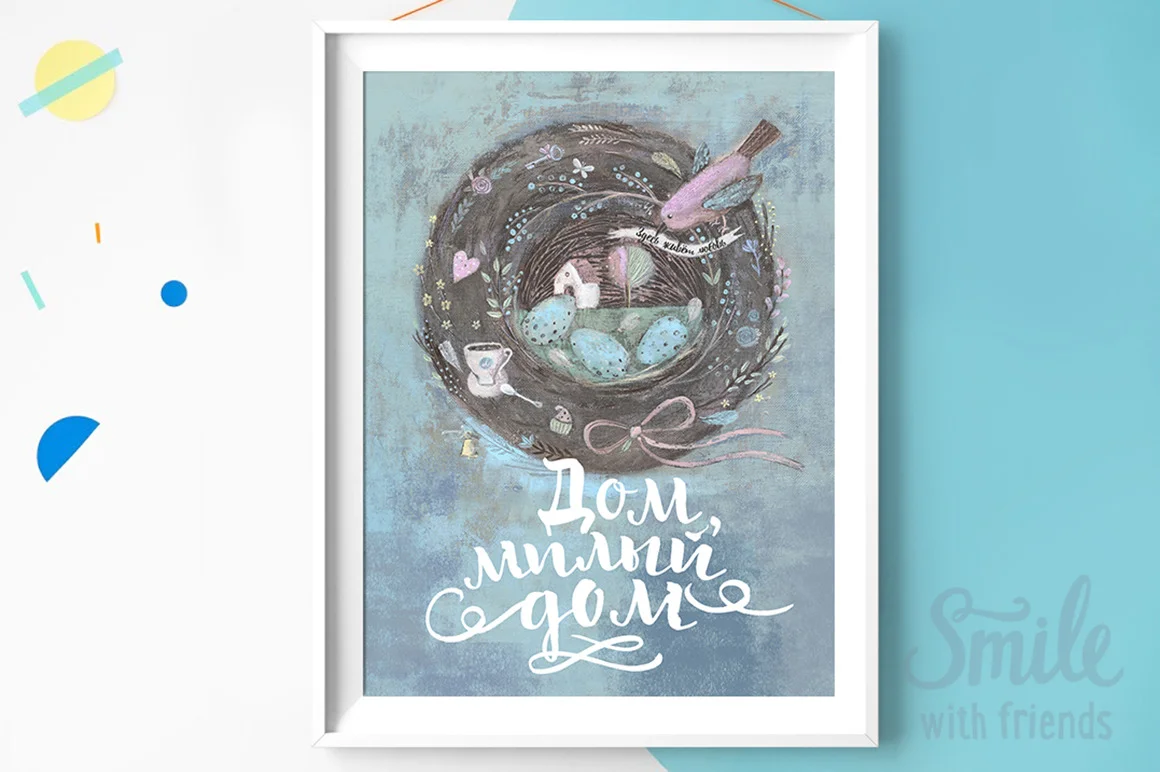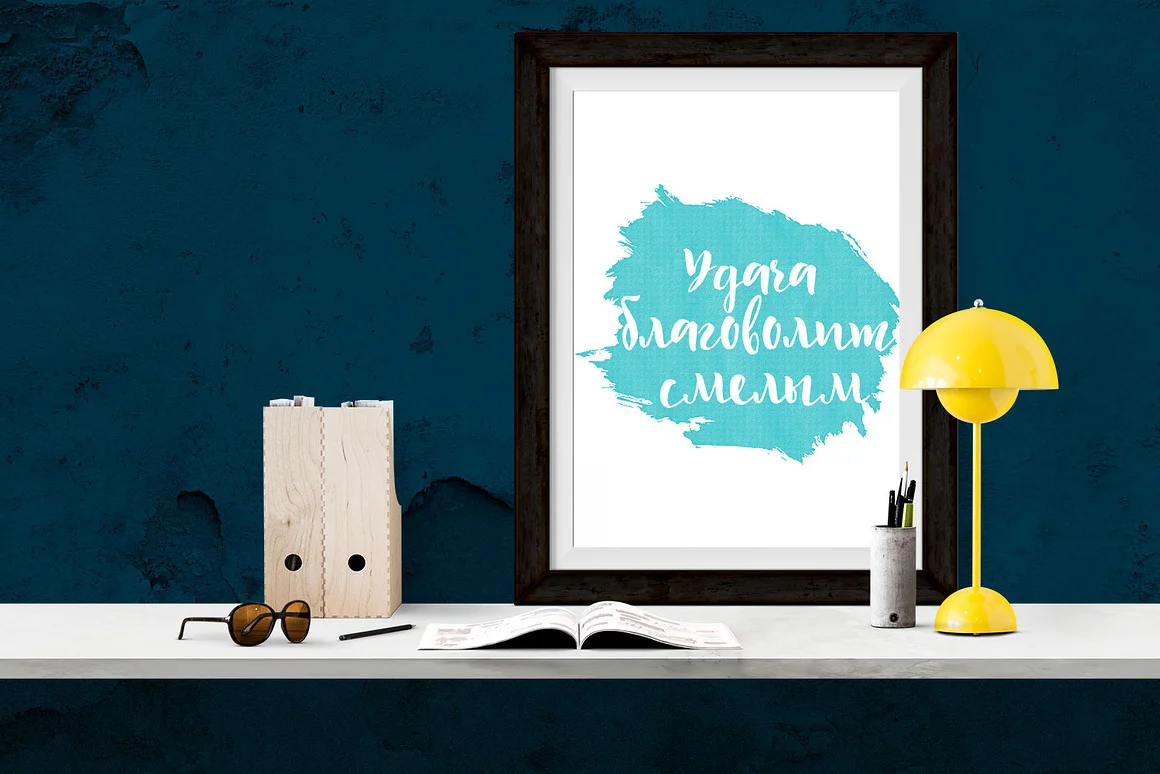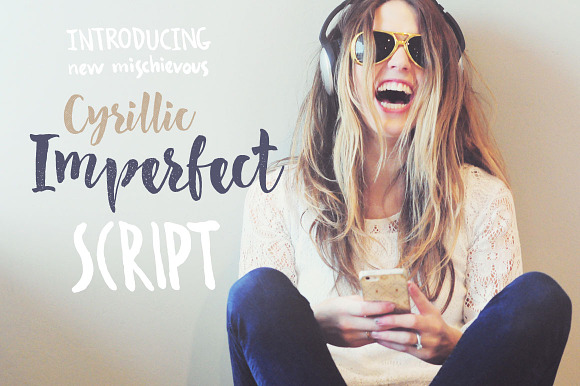
Imperfect Cyrillic and Latin Script Font
Few typefaces manage to balance distinctive character without sacrificing readability with genuine day-to-day practicality. Imperfect Cyrillic and Latin Script is one of them. The typeface brings an elegant, calligraphic sensibility to a broad range of creative disciplines, with controlled contrast that rewards close inspection that holds up whether the work is print-first or screen-first.
In practice, Imperfect Cyrillic and Latin Script proves particularly effective for bridal materials, editorial layouts, signage systems, wedding invitations, beauty packaging. Designers reaching for it find that the type decisions feel resolved rather than laboured — a useful quality when client timelines are tight.
The range of applications extends to fashion editorials, environmental graphics, advertising campaigns, social media graphics. That breadth is deliberate: the proportions and spacing were stress-tested across a wide range of mock briefs before the typeface was finalised.
UX designers establishing typographic systems for digital products find Imperfect Cyrillic and Latin Script a reliable choice for projects that demand both personality and restraint. The design avoids the self-conscious quirkiness that dates quickly, settling instead for considered distinctiveness that holds up over time.